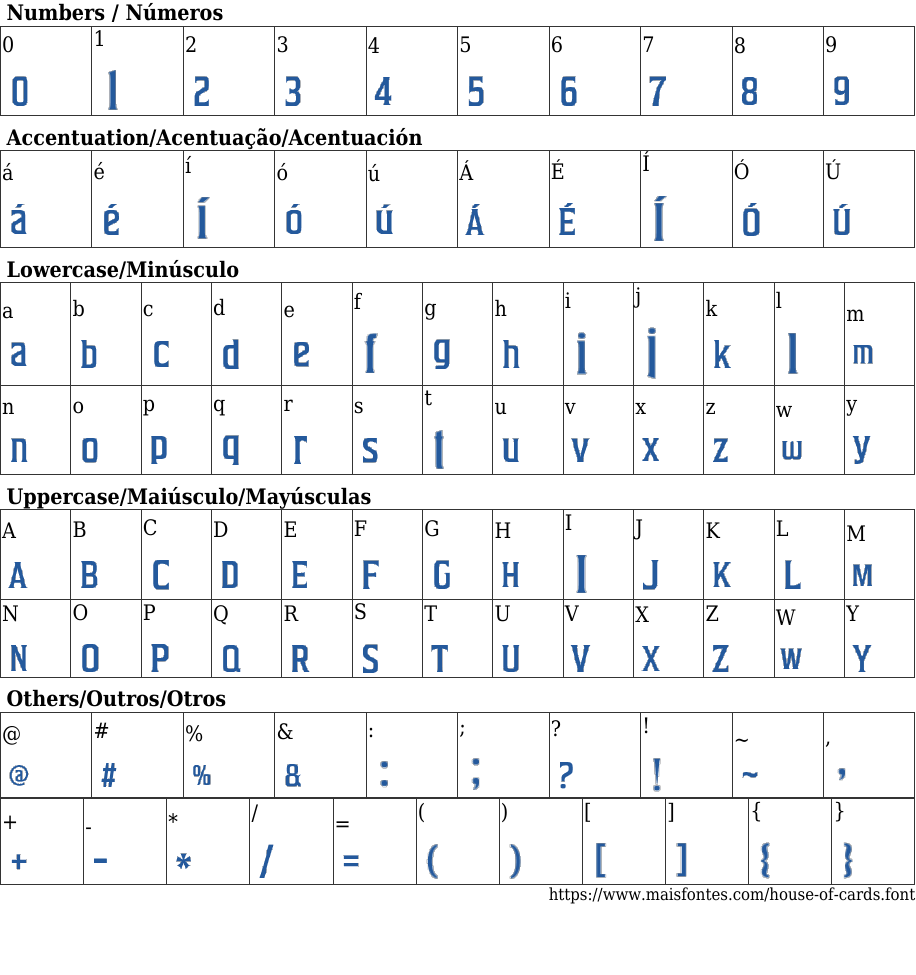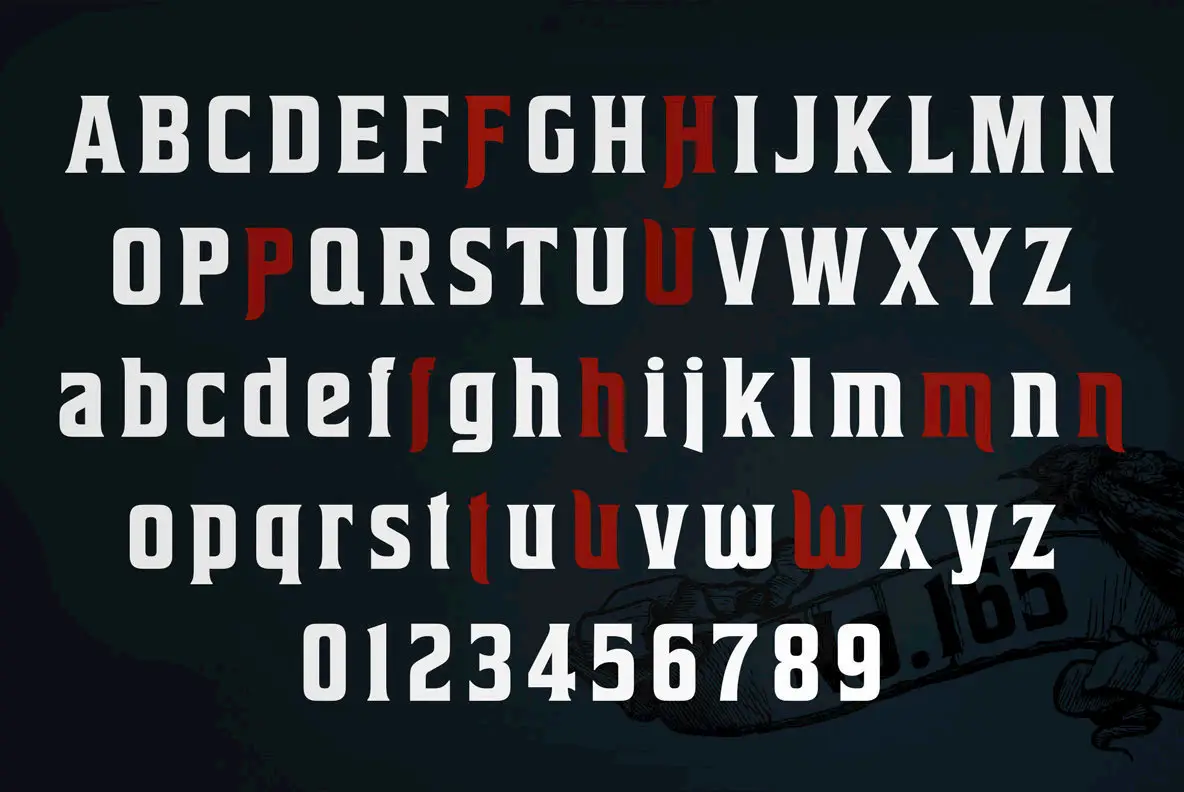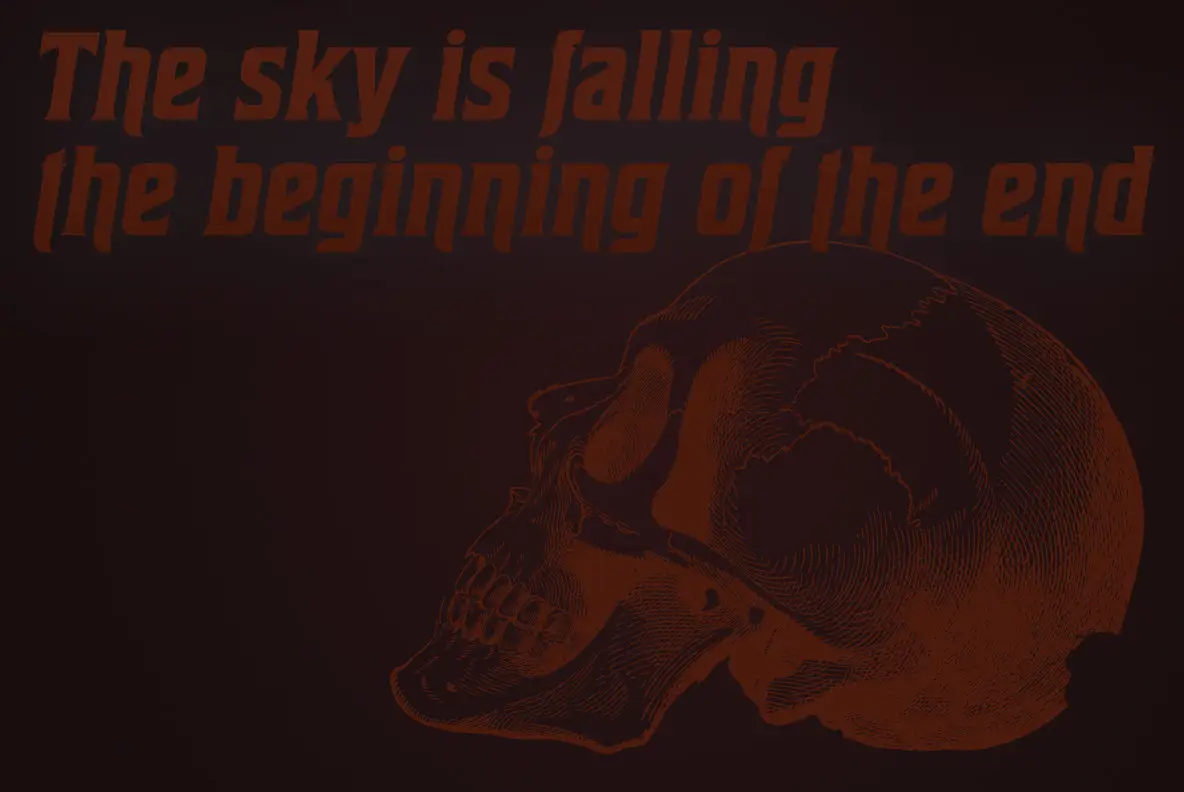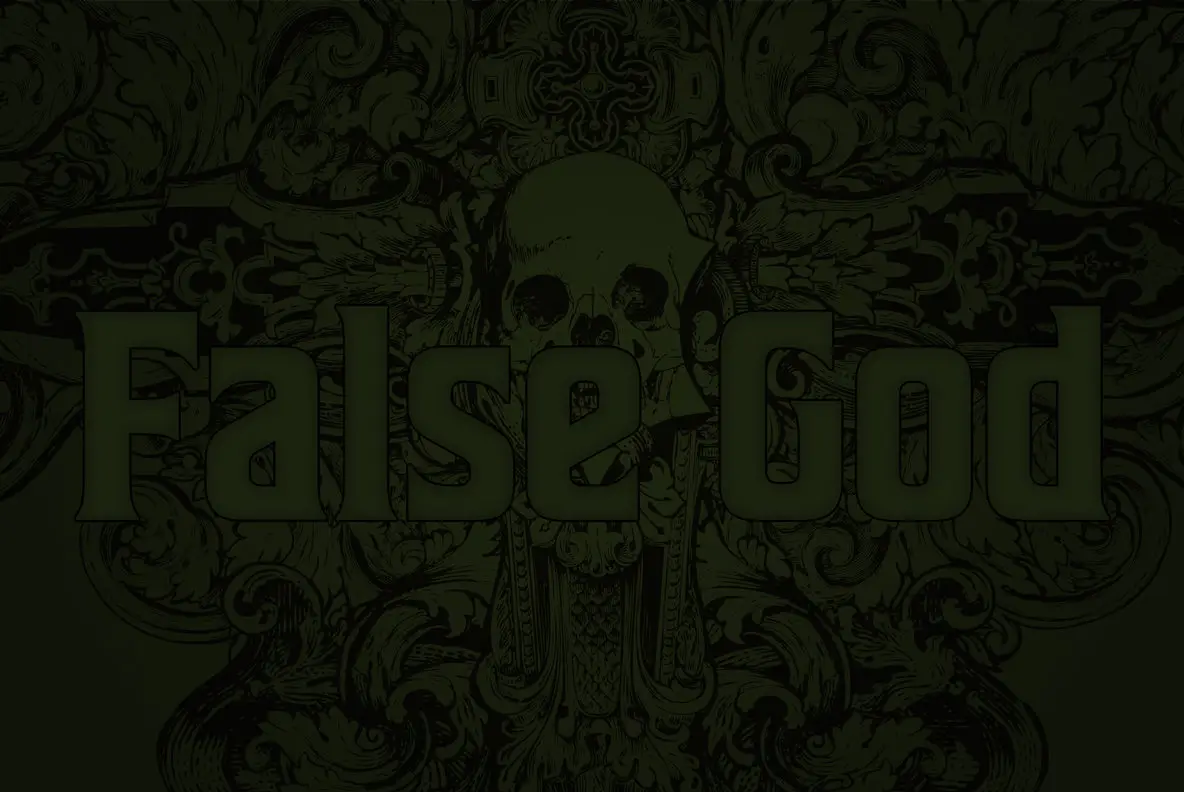
House Of Cards Font . house of cards by ryoichi tsunekawa: The font subfamily is regular. The title of the tv series is. house of cards font. House of cards is an american political drama series first aired in february, 2013. Learn how to install and use. house of cards is inspired by and based on retro hamilton’s teniers typeface which is popular wooden type fonts of the 19th century. A serif typeface with 4 styles, available from adobe fonts. explore house of cards designed by ryoichi tsunekawa at adobe fonts. The font was designed by ryoichi tsunekawa and free for. “bourgeois condensed bold” is the font used in the. what font was used in house of cards logo and posters? Download—the font meta search engine with more than 50,000 font styles to find and. fontsherlock offers free download of house of cards font, the title font of the american political drama series. The house of cards bold font.
The title of the tv series is. “bourgeois condensed bold” is the font used in the. The font subfamily is regular. house of cards is the perfect font for all your fun designs. The house of cards bold font. About house of cards font. what font was used in house of cards logo and posters? house of cards bold is the perfect font for all your fun designs. house of cards is inspired by and based on retro hamilton’s teniers typeface which is popular wooden type fonts of the 19th century. house of cards font.
House Of Cards Font House of cards is an american political drama series first aired in february, 2013. Download—the font meta search engine with more than 50,000 font styles to find and. The font was designed by ryoichi tsunekawa and free for. “bourgeois condensed bold” is the font used in the. fontsherlock offers free download of house of cards font, the title font of the american political drama series. About house of cards font. The font subfamily is regular. house of cards bold is the perfect font for all your fun designs. A serif typeface with 4 styles, available from adobe fonts. Learn how to install and use. house of cards is the perfect font for all your fun designs. house of cards font. house of cards is inspired by and based on retro hamilton’s teniers typeface which is popular wooden type fonts of the 19th century. The house of cards bold font. House of cards is an american political drama series first aired in february, 2013. explore house of cards designed by ryoichi tsunekawa at adobe fonts.
Fontspring House of cards Fonts by Dharma Type House Of Cards Font About house of cards font. The house of cards bold font. A serif typeface with 4 styles, available from adobe fonts. The title of the tv series is. house of cards bold is the perfect font for all your fun designs. house of cards is inspired by and based on retro hamilton’s teniers typeface which is popular wooden. House Of Cards Font.
House of Cards Font YouWorkForThem House Of Cards Font The font was designed by ryoichi tsunekawa and free for. The title of the tv series is. what font was used in house of cards logo and posters? house of cards is inspired by and based on retro hamilton’s teniers typeface which is popular wooden type fonts of the 19th century. About house of cards font. The house. House Of Cards Font.
House of Cards series) Fonts In Use House Of Cards Font house of cards font. The house of cards bold font. explore house of cards designed by ryoichi tsunekawa at adobe fonts. Download—the font meta search engine with more than 50,000 font styles to find and. “bourgeois condensed bold” is the font used in the. About house of cards font. house of cards is inspired by and based. House Of Cards Font.
House Of Cards Font house of cards bold is the perfect font for all your fun designs. what font was used in house of cards logo and posters? house of cards is inspired by and based on retro hamilton’s teniers typeface which is popular wooden type fonts of the 19th century. house of cards is the perfect font for all. House Of Cards Font.
Similar Fonts To House of cards Fontspring House Of Cards Font house of cards is the perfect font for all your fun designs. About house of cards font. house of cards bold is the perfect font for all your fun designs. Learn how to install and use. A serif typeface with 4 styles, available from adobe fonts. house of cards is inspired by and based on retro hamilton’s. House Of Cards Font.
House of Cards Font YouWorkForThem House Of Cards Font The font subfamily is regular. house of cards by ryoichi tsunekawa: fontsherlock offers free download of house of cards font, the title font of the american political drama series. explore house of cards designed by ryoichi tsunekawa at adobe fonts. The font was designed by ryoichi tsunekawa and free for. house of cards bold is the. House Of Cards Font.
House of Cards Font YouWorkForThem House Of Cards Font The house of cards bold font. house of cards font. The font was designed by ryoichi tsunekawa and free for. The title of the tv series is. explore house of cards designed by ryoichi tsunekawa at adobe fonts. A serif typeface with 4 styles, available from adobe fonts. Download—the font meta search engine with more than 50,000 font. House Of Cards Font.
House of Cards // Good Type House of cards, Behance, House House Of Cards Font house of cards bold is the perfect font for all your fun designs. fontsherlock offers free download of house of cards font, the title font of the american political drama series. The font subfamily is regular. “bourgeois condensed bold” is the font used in the. Learn how to install and use. The title of the tv series is.. House Of Cards Font.
House of Cards Font FontPath House Of Cards Font house of cards by ryoichi tsunekawa: house of cards is inspired by and based on retro hamilton’s teniers typeface which is popular wooden type fonts of the 19th century. Download—the font meta search engine with more than 50,000 font styles to find and. “bourgeois condensed bold” is the font used in the. house of cards bold is. House Of Cards Font.